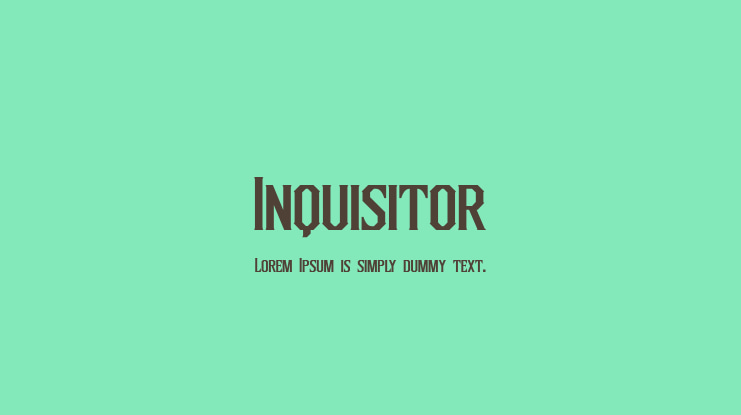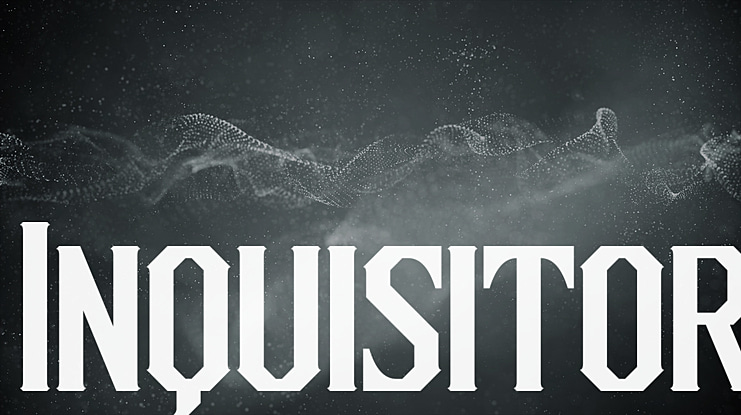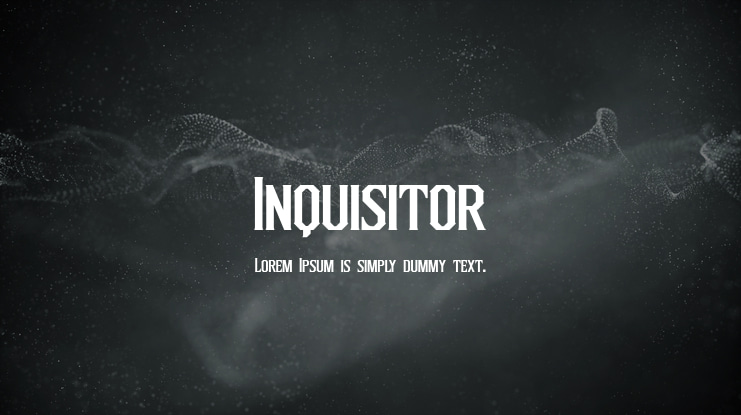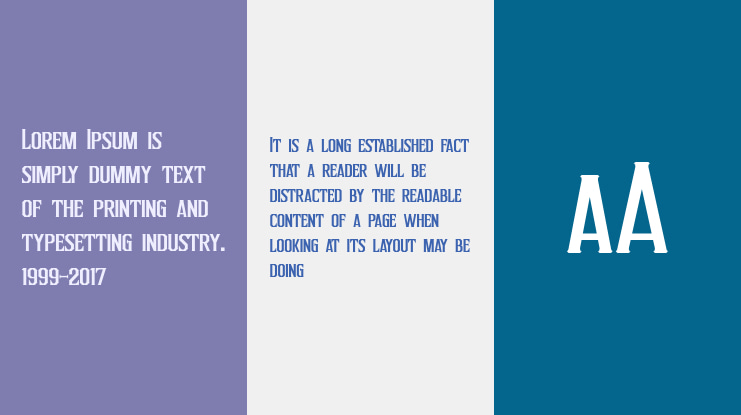
Inquisitor Font Family
Neale Davidson
Insipired by the Dark Heresy sub-titles from Fantasy Flight Games, Inquisitor is a tall, thin typeface with a basic gothic look and feel. Includes full alphabet and numerics, extended punctuation, and euro. Available in regular, bold, italic, and bold-italic weights.